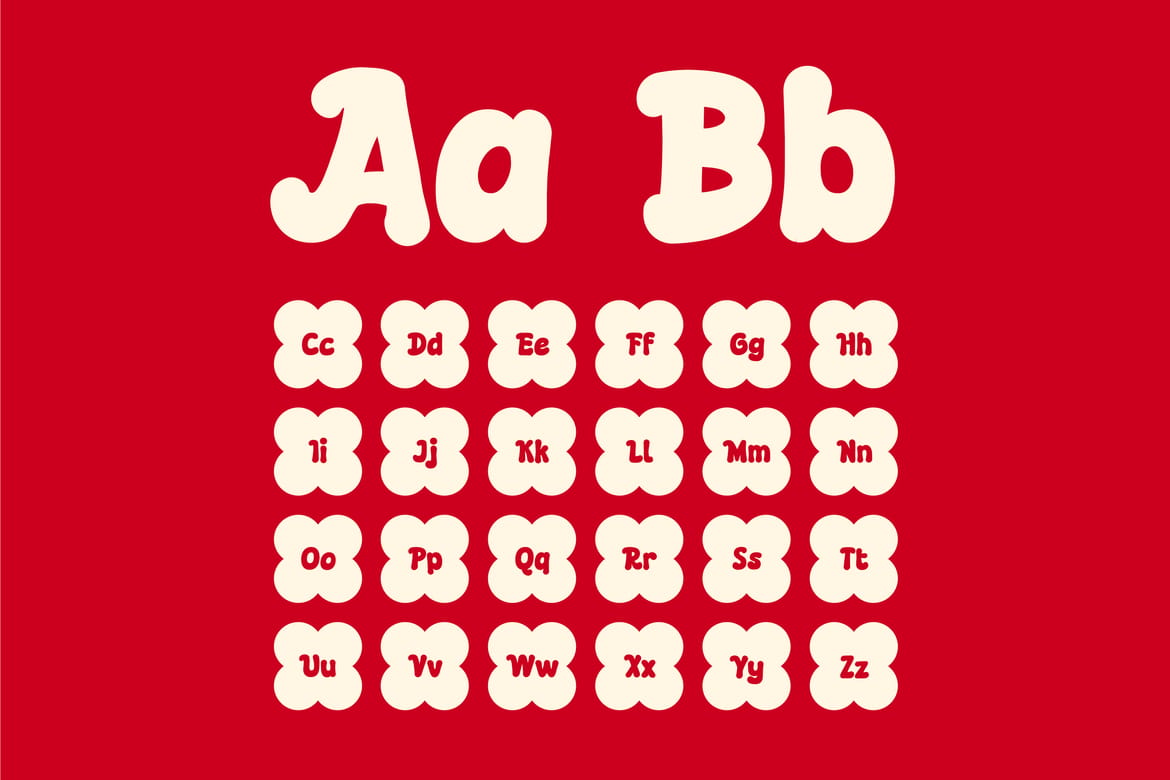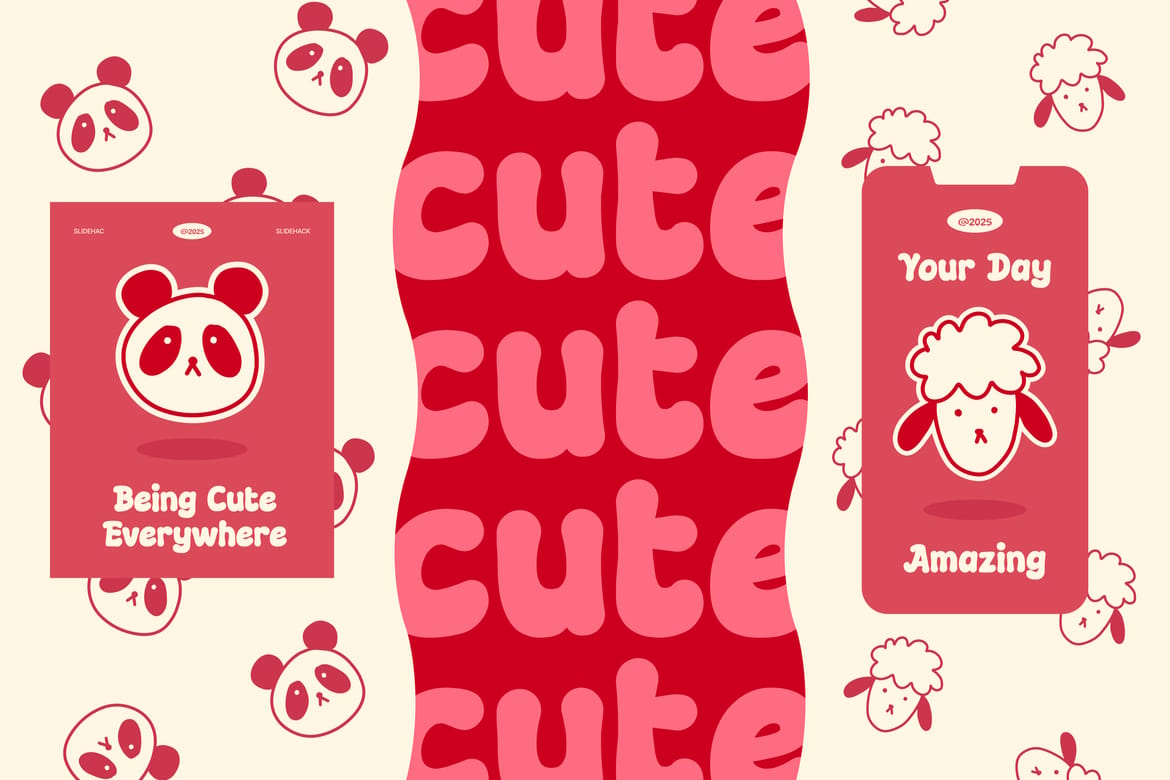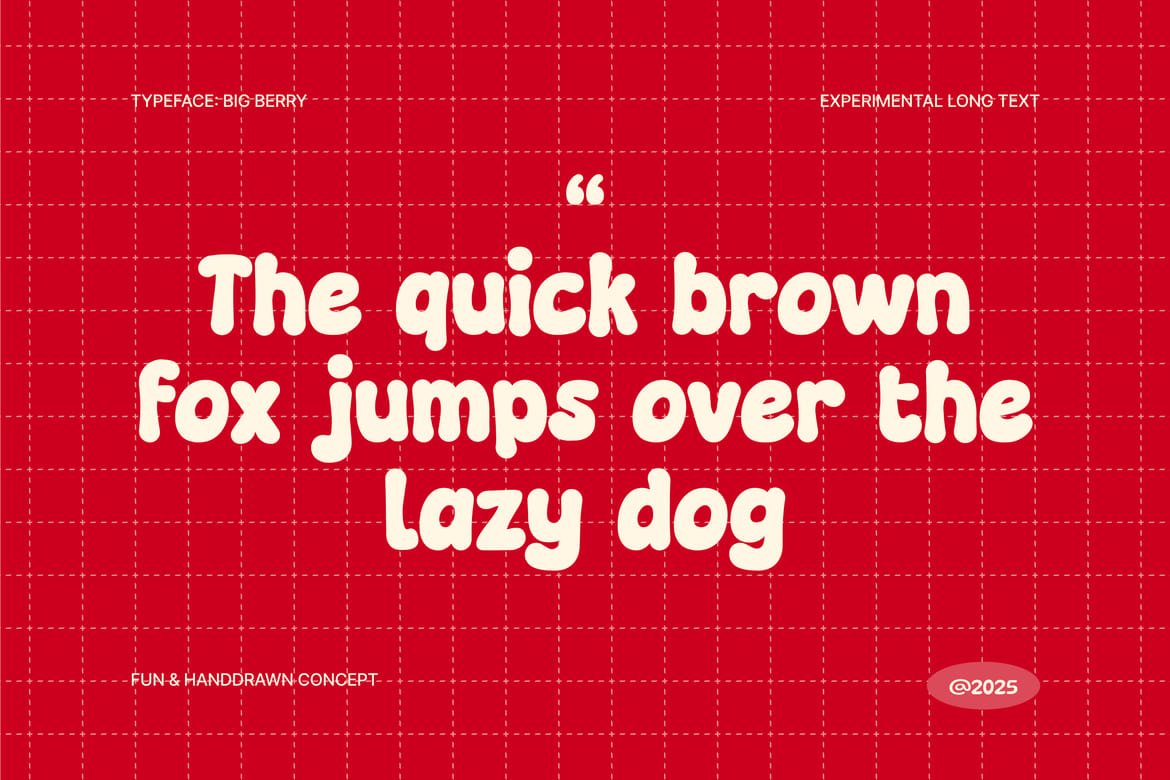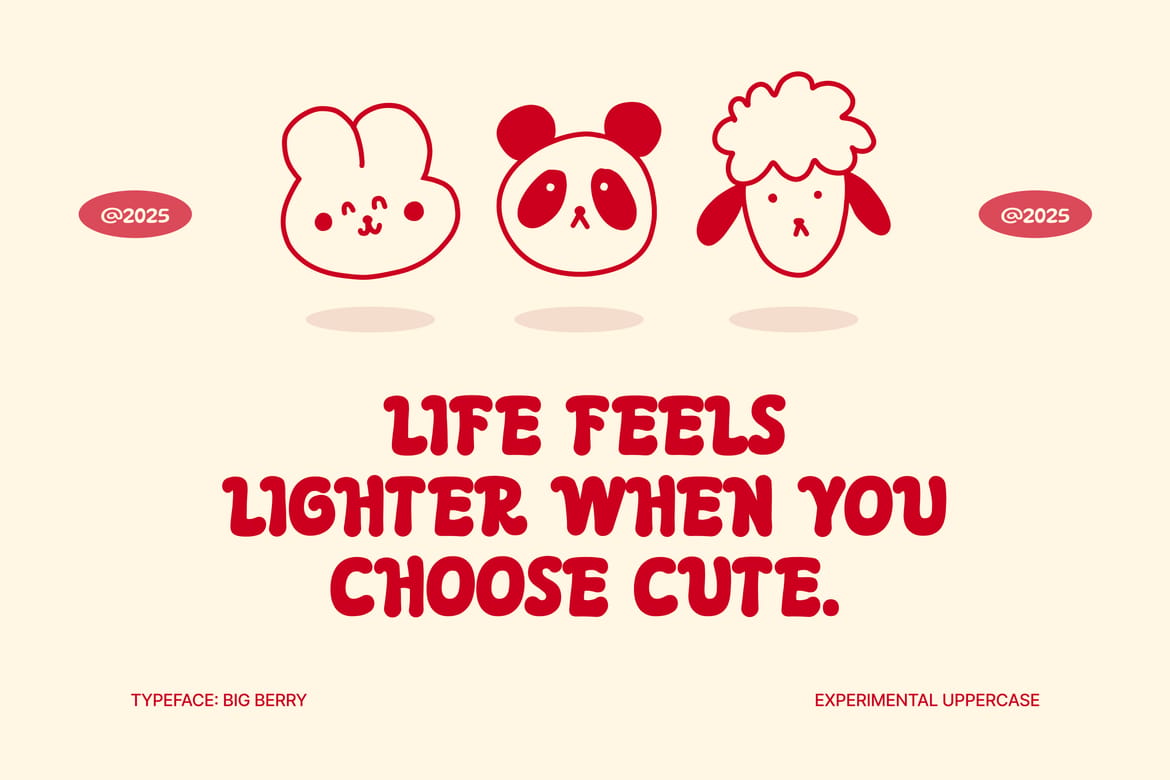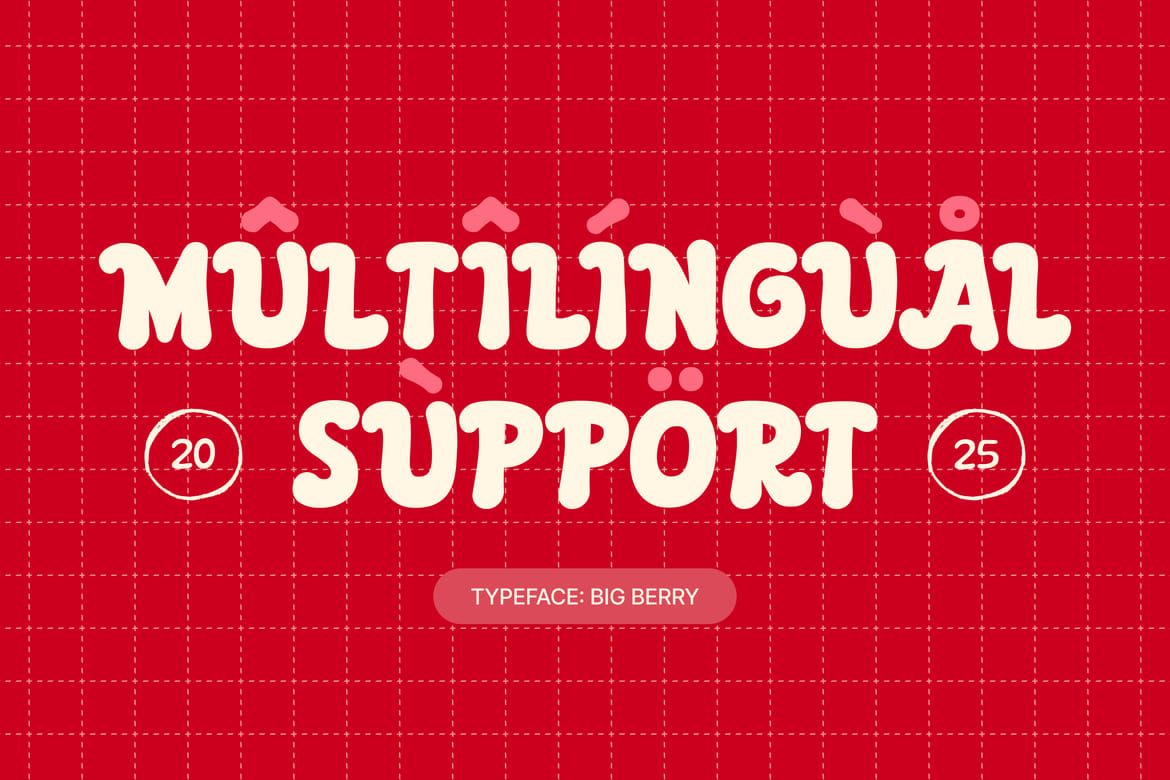
Big Berry is a playful and bold display font that captures a fun, bubbly, and retro charm. Perfect for children’s projects, logos, posters, packaging, and social media designs. With its rounded shapes and friendly personality, Big Berry adds a joyful touch to any creative project seeking a cheerful vintage vibe.
Cute bubbly display with a cheerful retro feel
Perfect for snack packaging, kids branding, and playful merchandise designs
Soft rounded shapes that create a sweet, friendly, and easy-to-remember personality